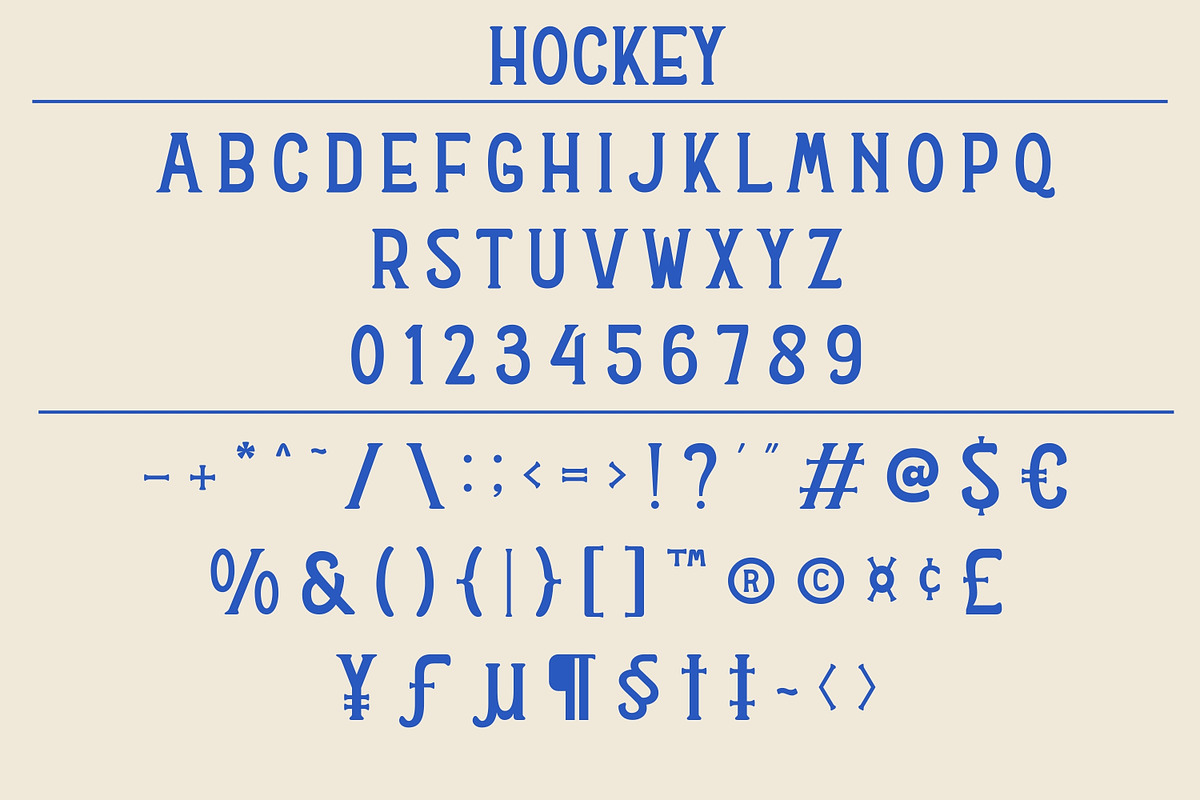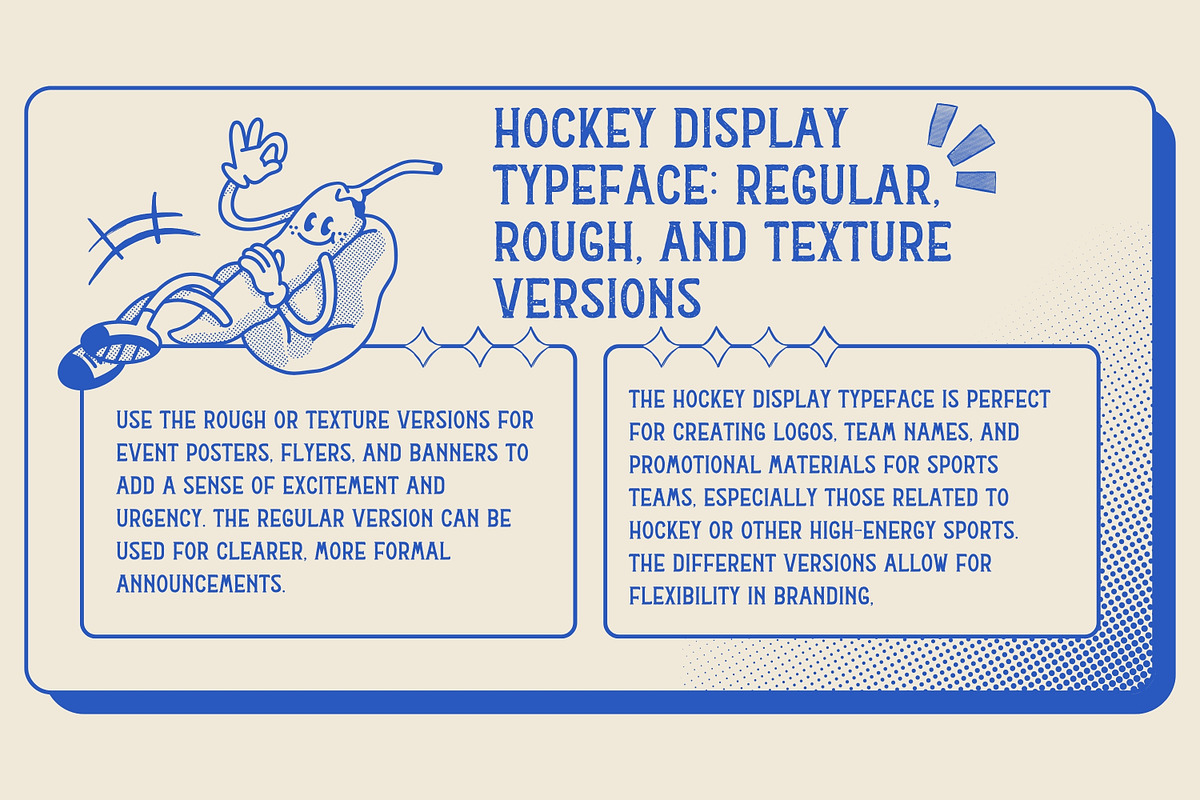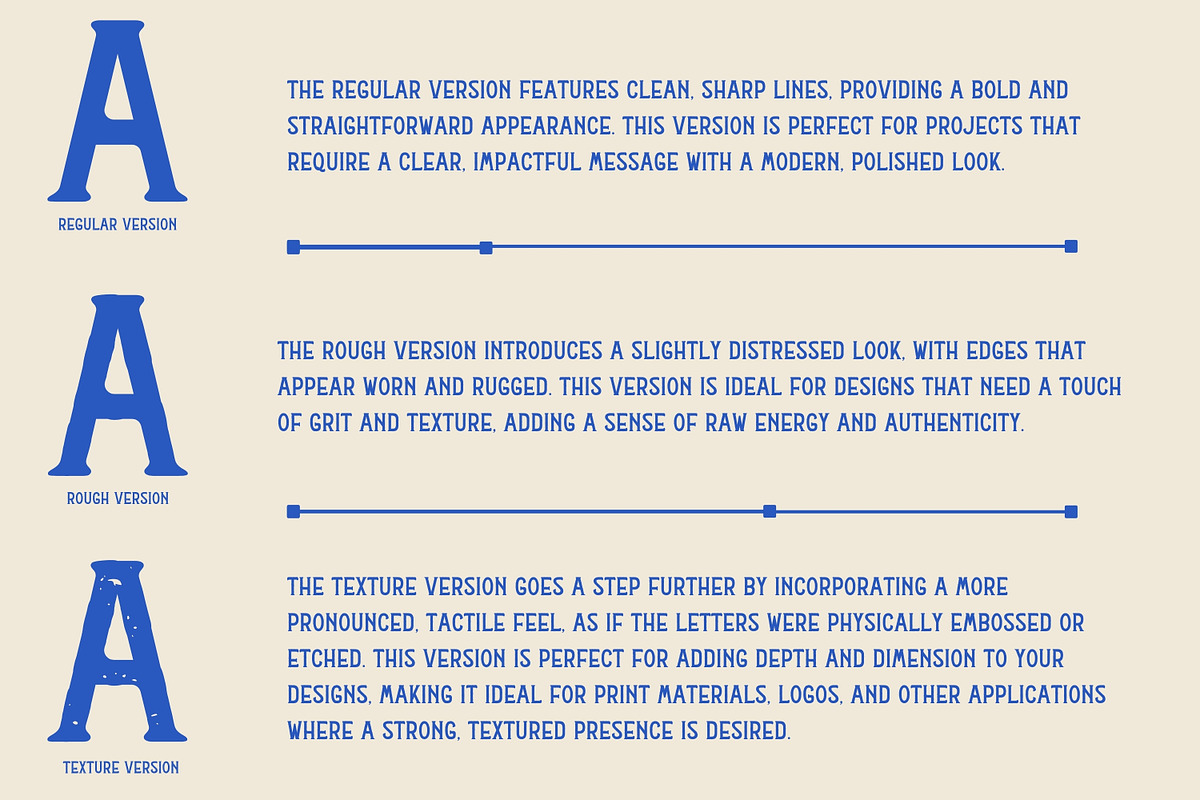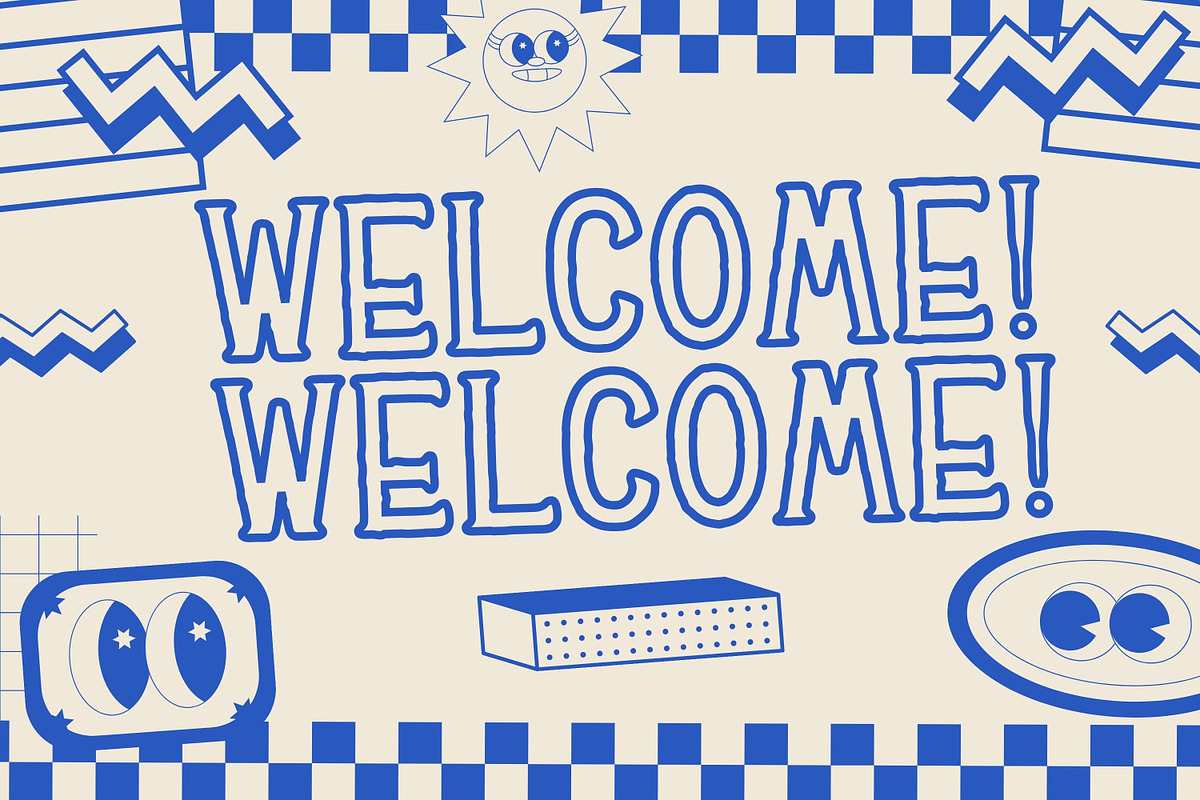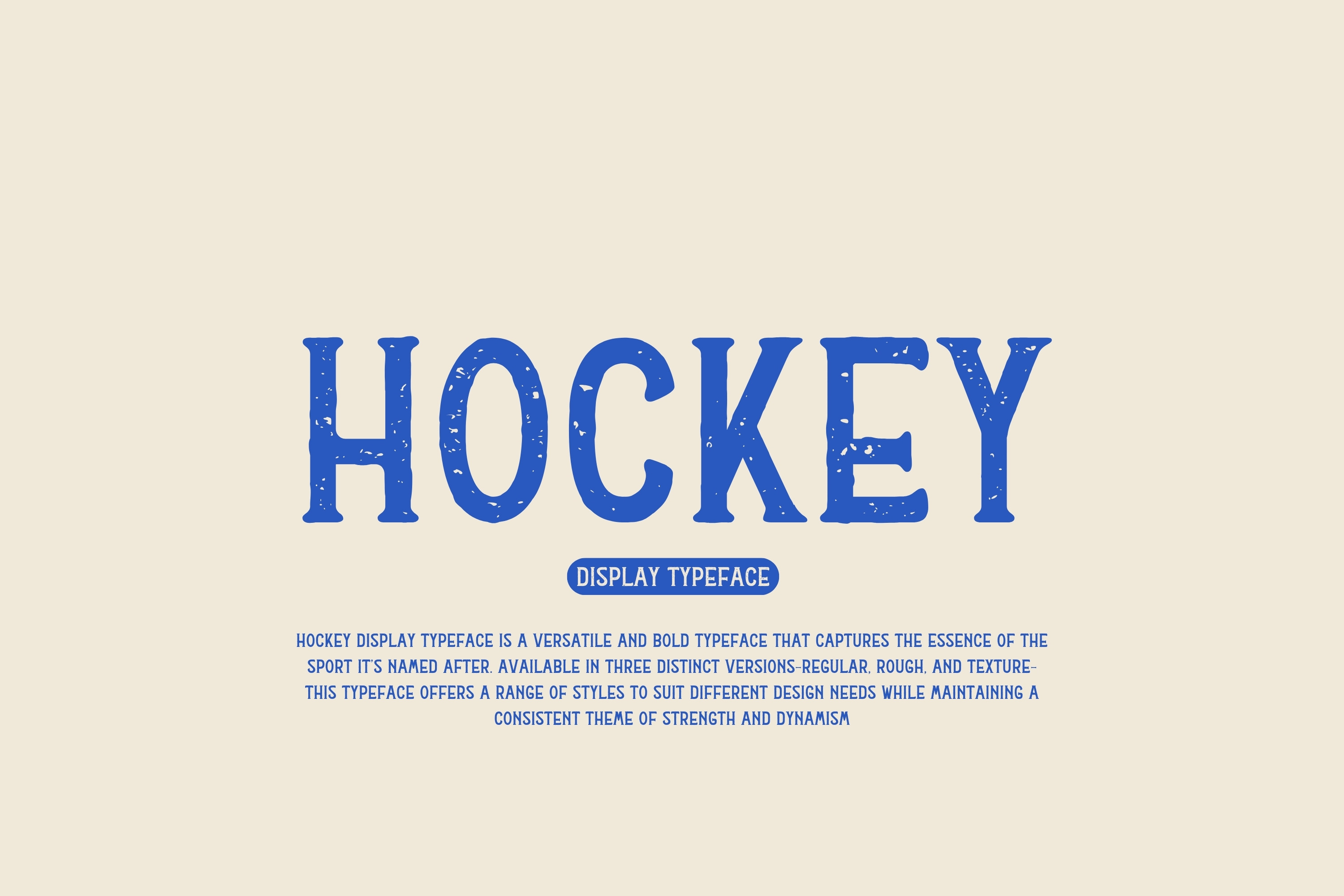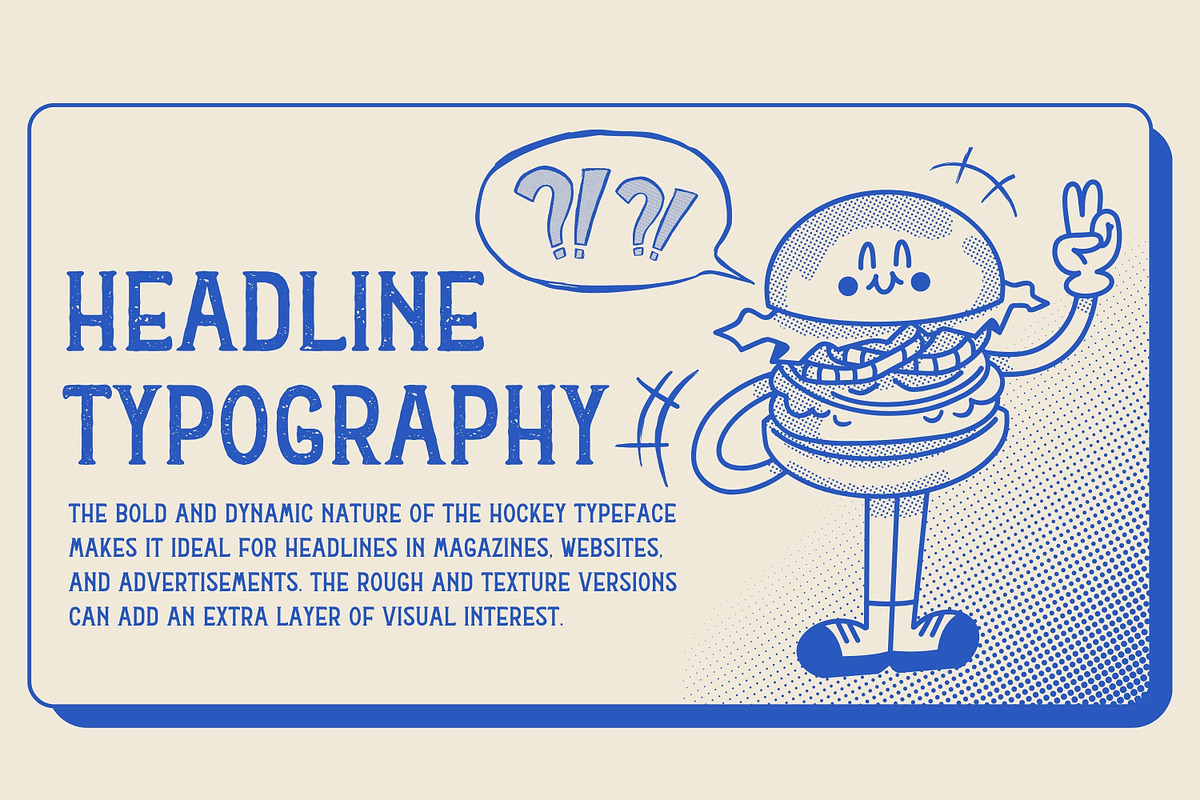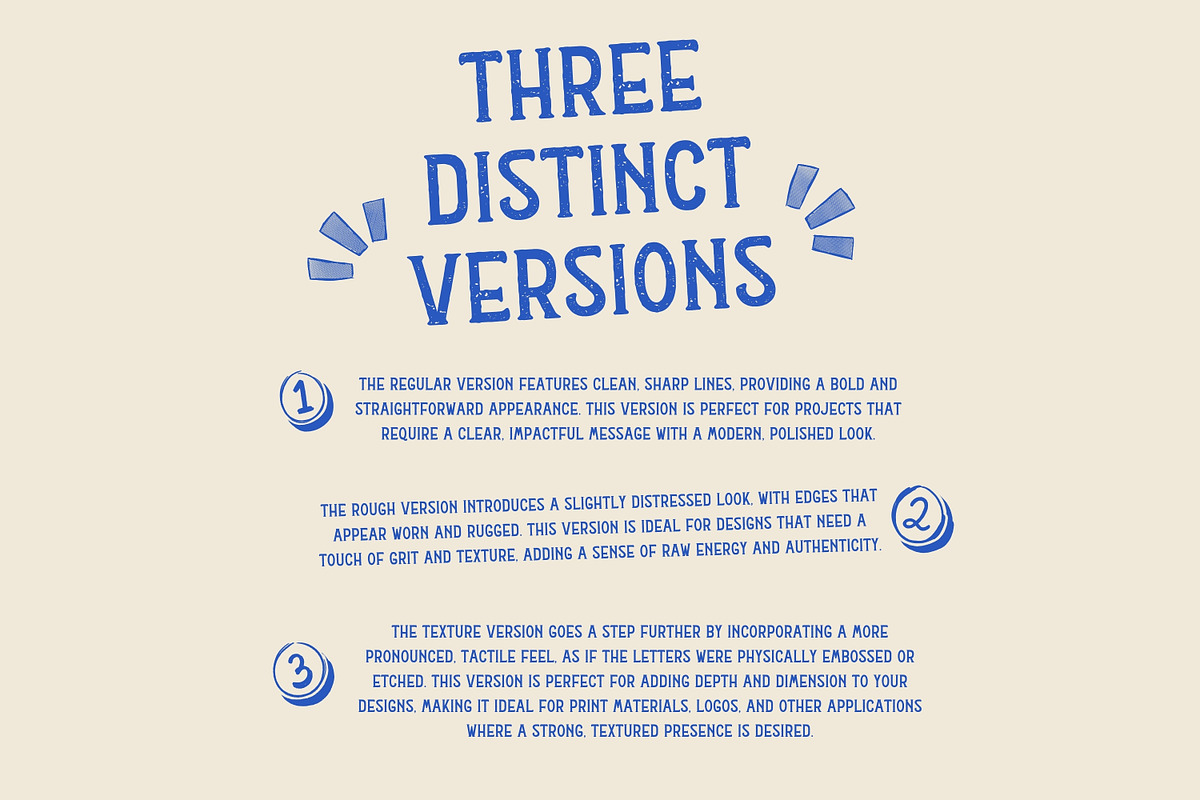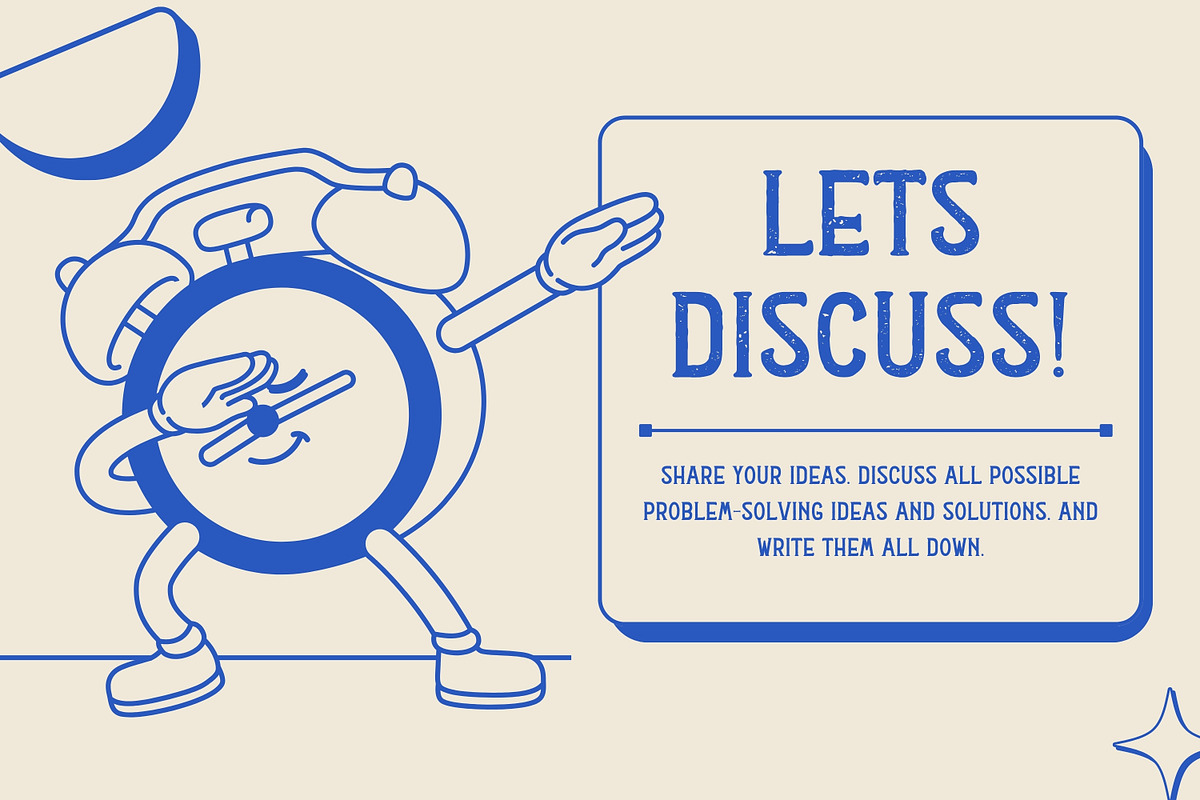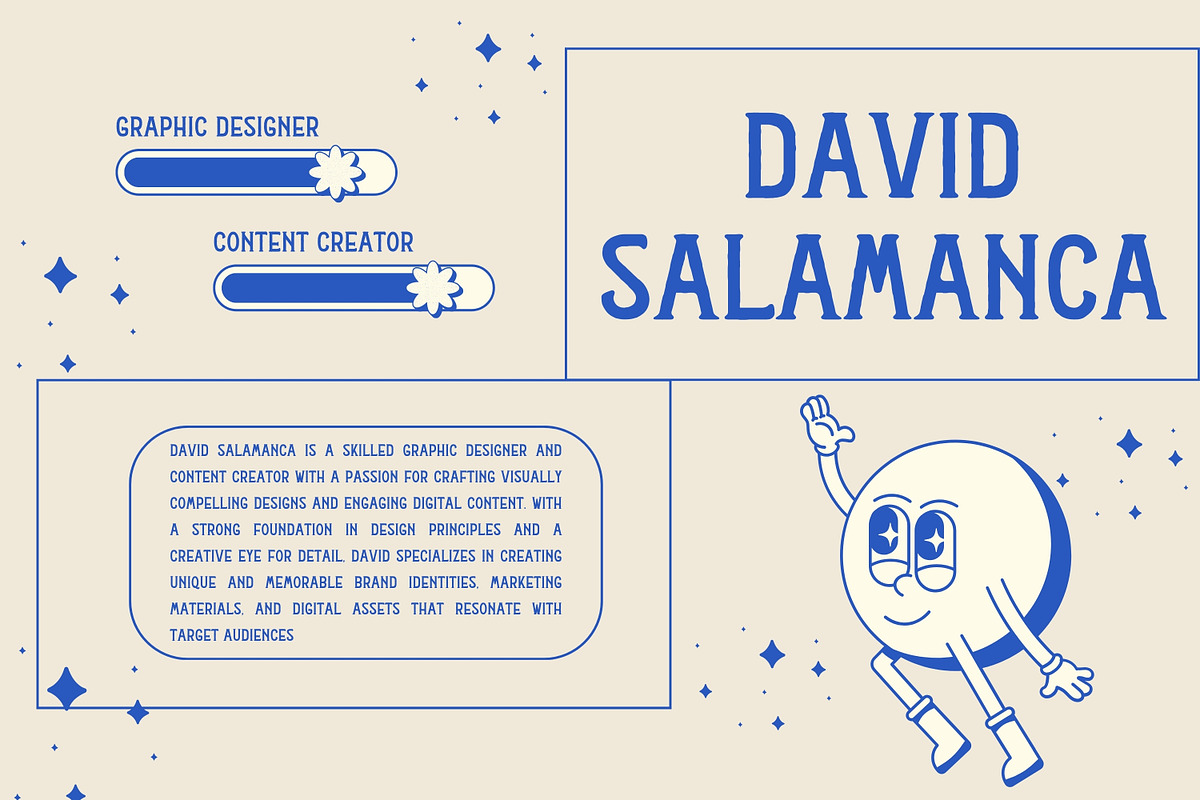
Hockey - Display Typeface
Hockey Display Typeface: Regular, Rough, and Texture Versions
The Hockey Display Typeface is a versatile and bold typeface that captures the essence of the sport it’s named after. Available in three distinct versions—Regular, Rough, and Texture—this typeface offers a range of styles to suit different design needs while maintaining a consistent theme of strength and dynamism.
### Key Features:
Three Distinct Versions:
- Regular:
- The Regular version features clean, sharp lines, providing a bold and straightforward appearance. This version is perfect for projects that require a clear, impactful message with a modern, polished look.
- Rough:
- The Rough version introduces a slightly distressed look, with edges that appear worn and rugged. This version is ideal for designs that need a touch of grit and texture, adding a sense of raw energy and authenticity.
- Texture:
- The Texture version goes a step further by incorporating a more pronounced, tactile feel, as if the letters were physically embossed or etched. This version is perfect for adding depth and dimension to your designs, making it ideal for print materials, logos, and other applications where a strong, textured presence is desired.
- Regular:
Sport-Inspired Design:
- All three versions are inspired by the fast-paced, high-energy nature of hockey, featuring bold characters with a sense of motion and power.
Versatility Across Styles:
- The availability of three different styles allows designers to choose the version that best fits their project, whether it’s a clean, modern look with Regular, a rugged, dynamic feel with Rough, or a deep, tactile impact with Texture.
High Readability:
- Despite the variations in texture and style, each version maintains excellent readability, ensuring that your message is clear and impactful, whether on a small or large scale.
### Applications:
Sports Branding:
- The Hockey Display Typeface is perfect for creating logos, team names, and promotional materials for sports teams, especially those related to hockey or other high-energy sports. The different versions allow for flexibility in branding, from a clean look with Regular to a more rugged or textured feel with Rough or Texture.
Event Promotions:
- Use the Rough or Texture versions for event posters, flyers, and banners to add a sense of excitement and urgency. The Regular version can be used for clearer, more formal announcements.
Merchandise Design:
- All three versions work well on apparel, accessories, and other branded merchandise. The Texture version, in particular, adds a tactile feel that can make printed items stand out.
Headline Typography:
- The bold and dynamic nature of the Hockey typeface makes it ideal for headlines in magazines, websites, and advertisements. The Rough and Texture versions can add an extra layer of visual interest.
Stylistic set
### Conclusion:
The Hockey Display Typeface, with its three distinct versions—Regular, Rough, and Texture—provides a versatile toolkit for designers looking to convey strength, energy, and dynamism in their projects. Whether you need a clean, modern look, a rugged edge, or a textured impact, Hockey delivers with style and readability, making it perfect for sports branding, event promotions, and any design that requires a bold, athletic presence.